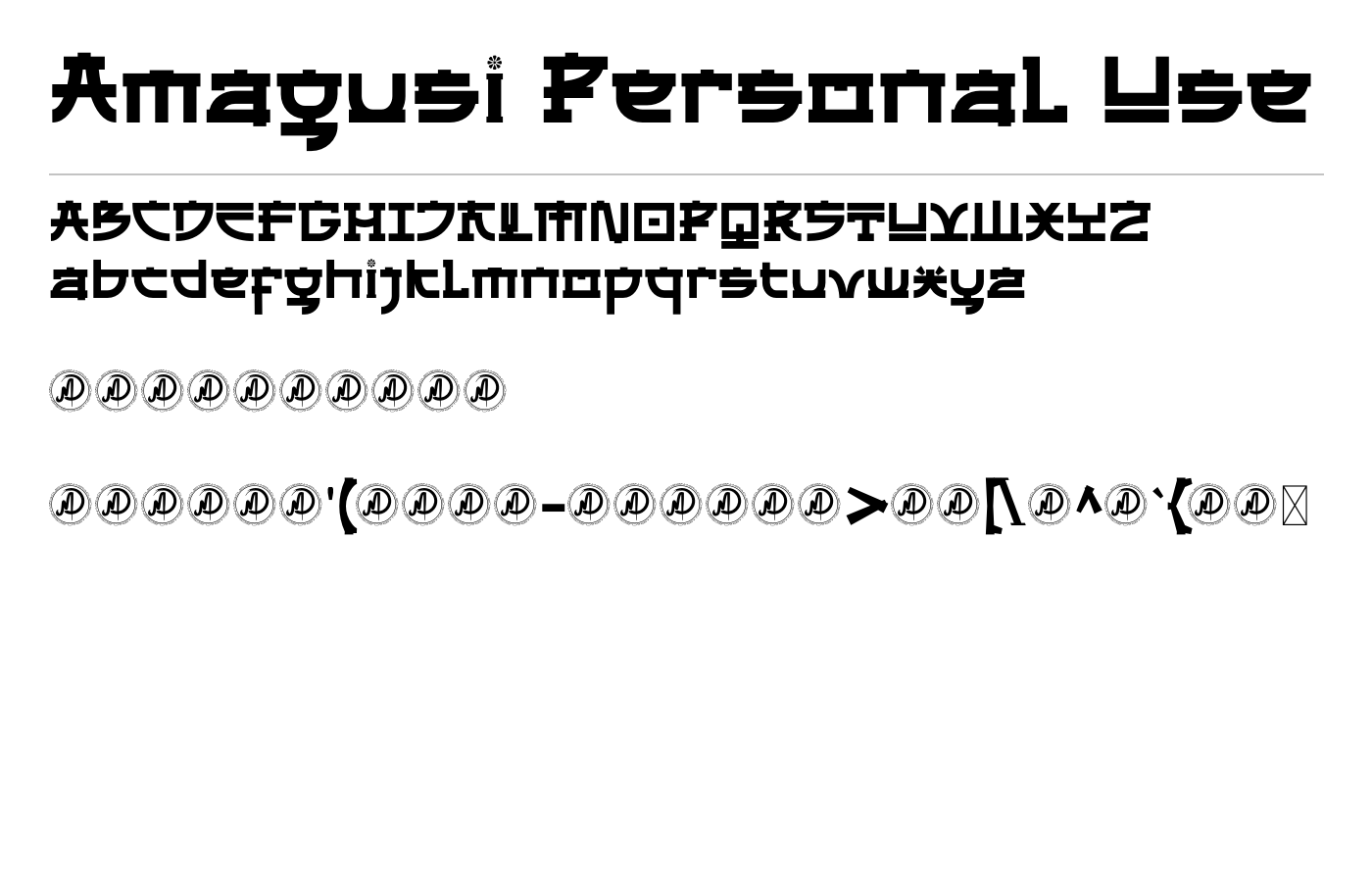
Amagusi is a bold, geometric sans serif font with a highly stylized, almost futuristic appearance. Its strong, blocky letterforms feature sharp angles and unique decorative details, giving it a striking and edgy personality well suited for headlines, logos, or graphic projects aiming for a modern, tech-inspired vibe. This font works best where a distinctive, impactful display style is needed, rather than for extended body text.
Amagusi Font
About Amagusi Font